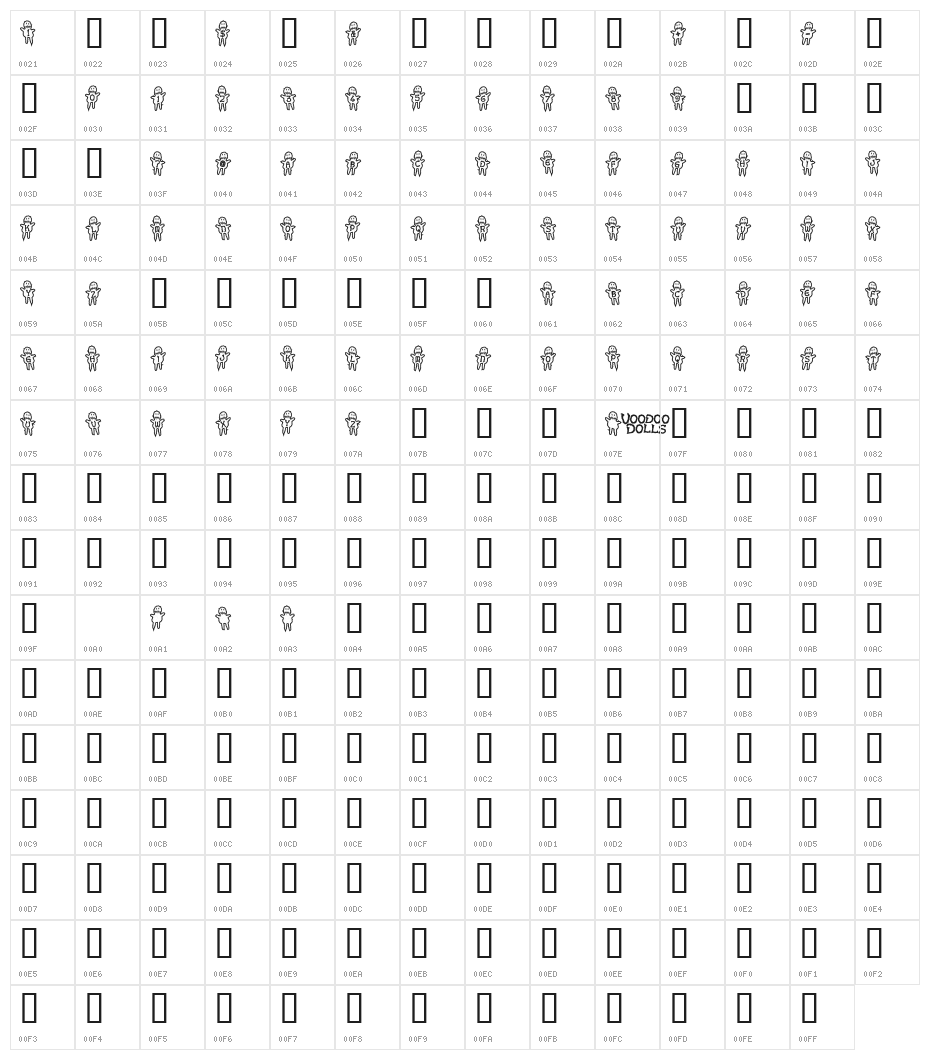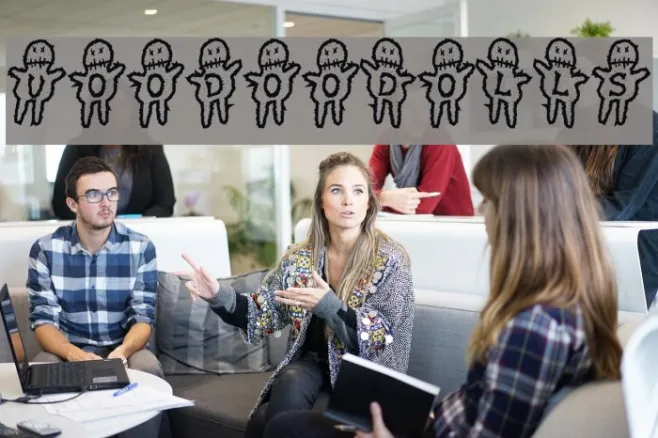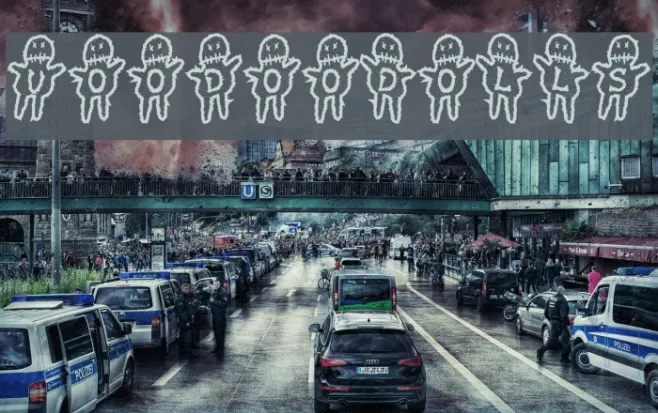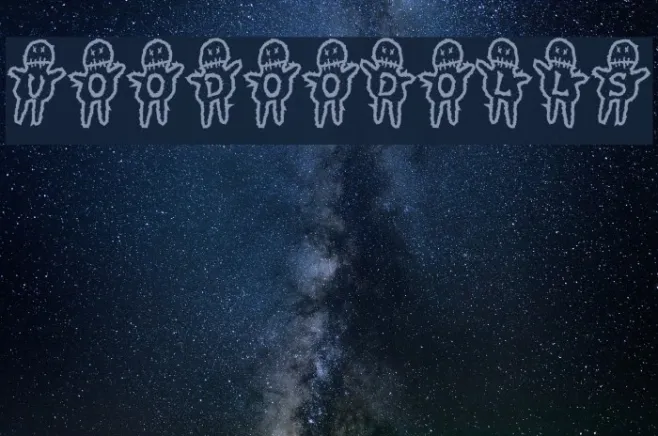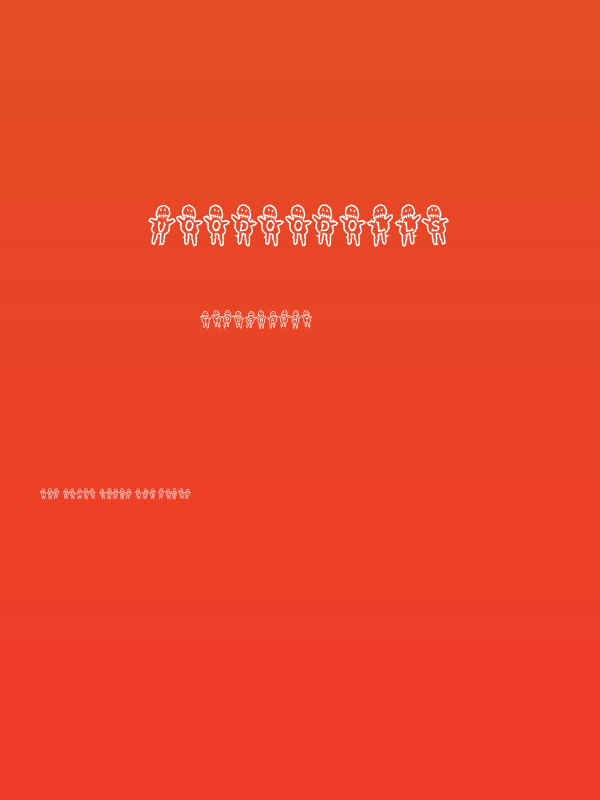
VoodooDolls Font
VoodooDolls Description
This font features a playful and whimsical design, where each character is represented by a small, cartoonish voodoo doll figure. The dolls have stitched details on their heads, adding a quirky and handmade feel. The letters and numbers are integrated into the bodies of these figures, making the font highly decorative and unique. The style is consistent across uppercase, lowercase, and numerical characters, maintaining a cohesive look. The special characters are similarly styled, ensuring uniformity throughout the set. This font is perfect for projects that require a fun and unconventional aesthetic.
| Overall Style | Playful, Quirky |
| Use Case | Headlines, Posters, Themed Events |
| Proposed Projects | Ideal for Halloween-themed designs, children's books, playful posters, and novelty items. |